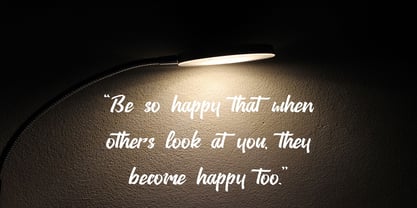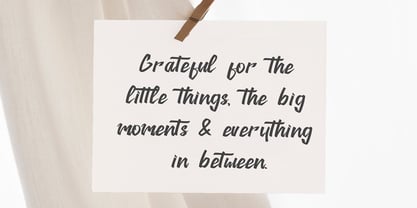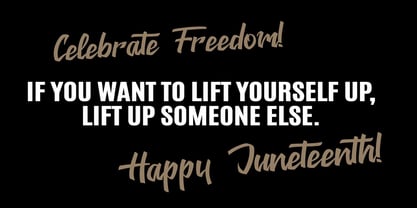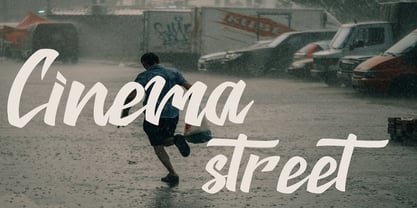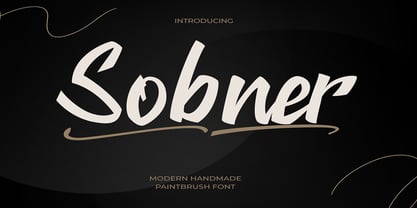
Sobner
by Dream Font
The Sobner Font Family was designed by Mark Jamra and published by Dream Font. Sobner contains 1 styles. More about this family
Sobner is an awesome with modern cutouts, and a dynamic styles. Ideal for Poster titles, menu flyer, Packaging, Logo and monograms or other modern dynamic text. Sobner compares favorably with legibility and size, creating the effect of power. Designed as a fast and dynamic font, but with a slightly different font design, check it out and grab it right away.This font is also suitable for projects like notebooks, posters, branding, logos, packaging, magazines, book covers, invitation card and more.
Designers: Mark Jamra
Foundry: Dream Font